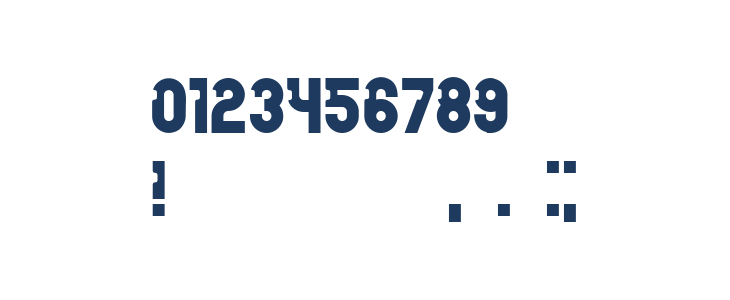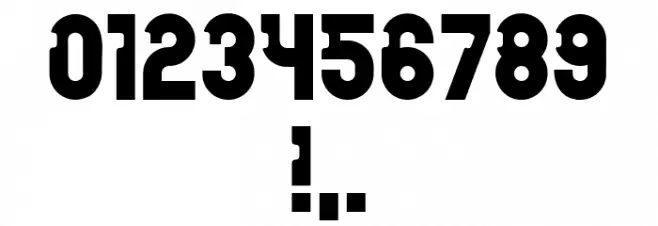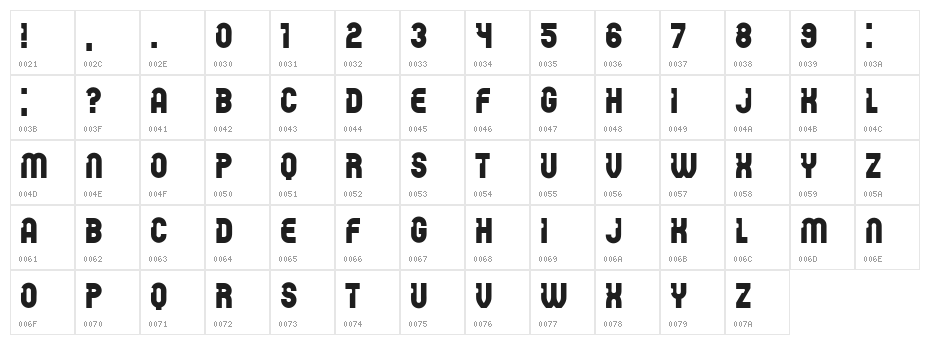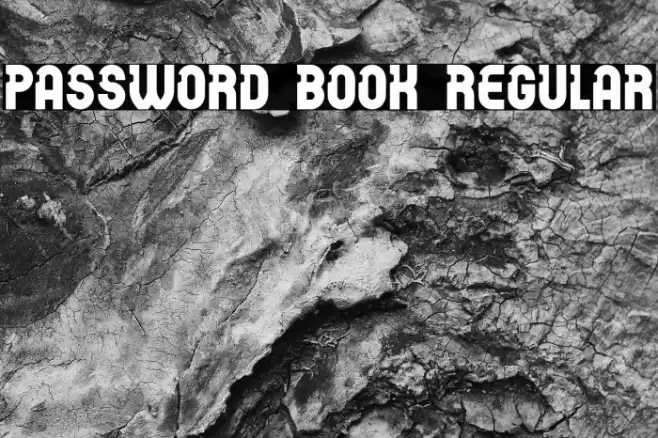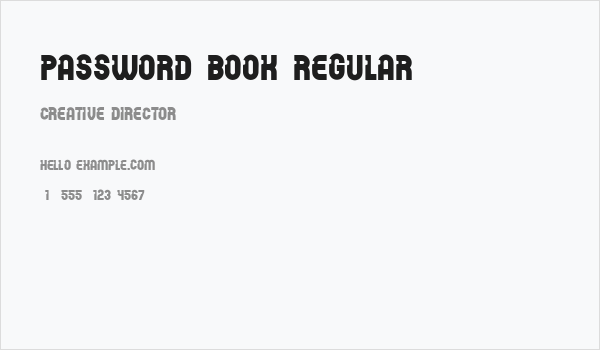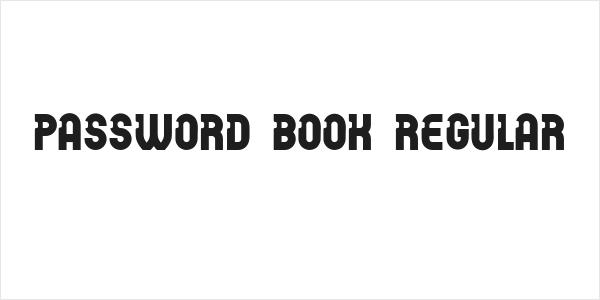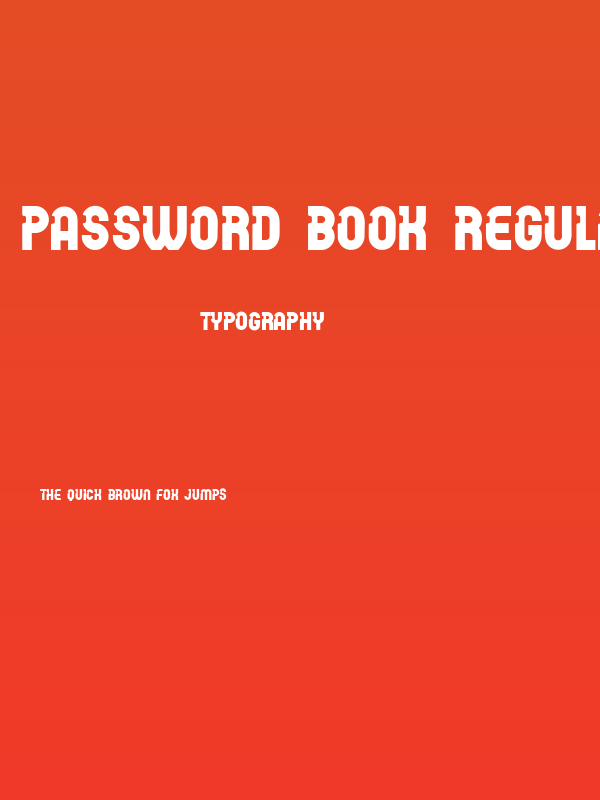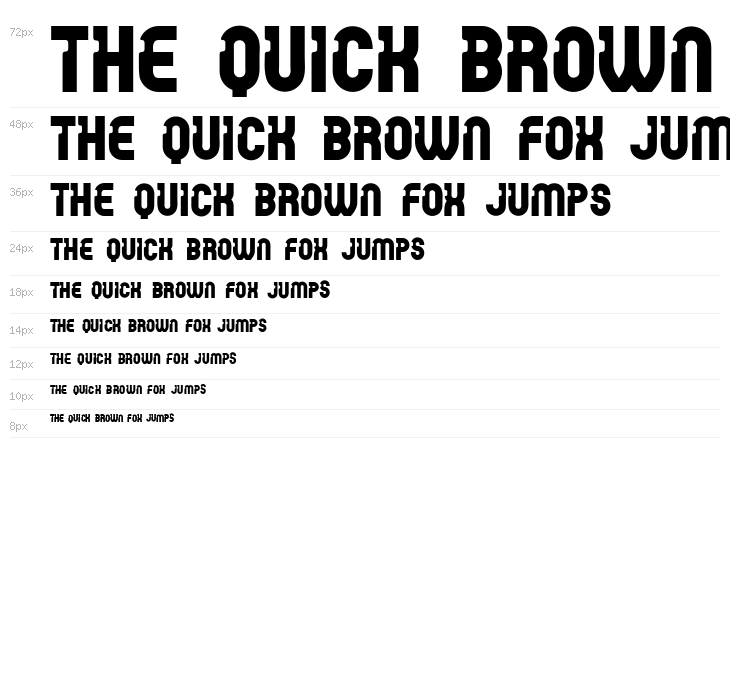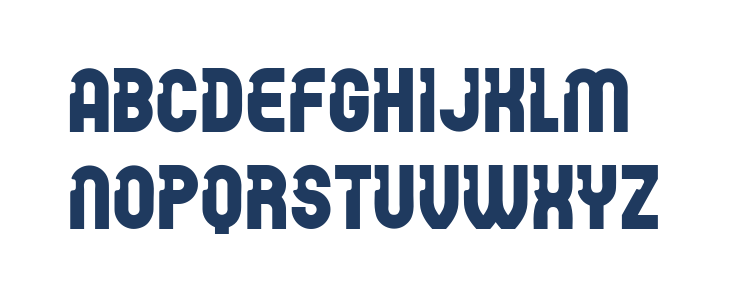
Password Book Regular Font
Password Book Regular Description
This font features bold, blocky characters with a strong presence, making it ideal for attention-grabbing designs. The uppercase letters are uniform in height, with rounded edges that soften the overall look. The numbers and special characters maintain the same bold style, ensuring consistency across all text elements. The font's design is reminiscent of vintage typefaces, yet it carries a modern twist with its clean lines and smooth curves. Its distinct style makes it suitable for various creative applications, where a strong and memorable impression is desired.
| Overall Style | Vintage, Modern |
| Proposed Projects | Ideal for posters, headlines, branding, and any design requiring a bold statement. |